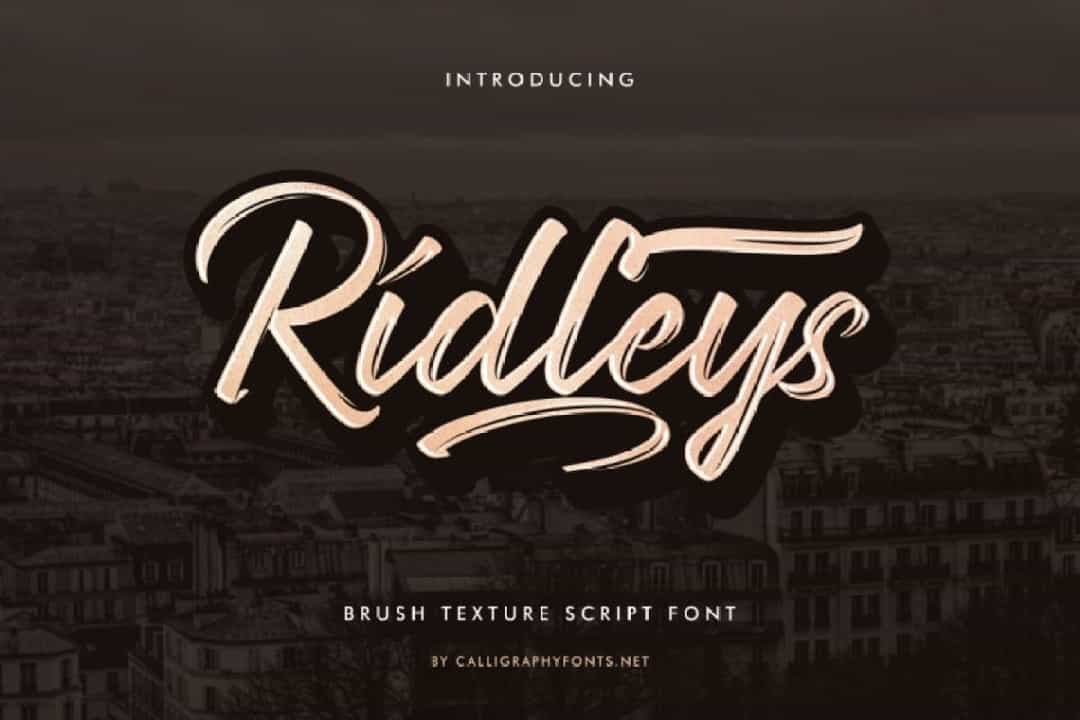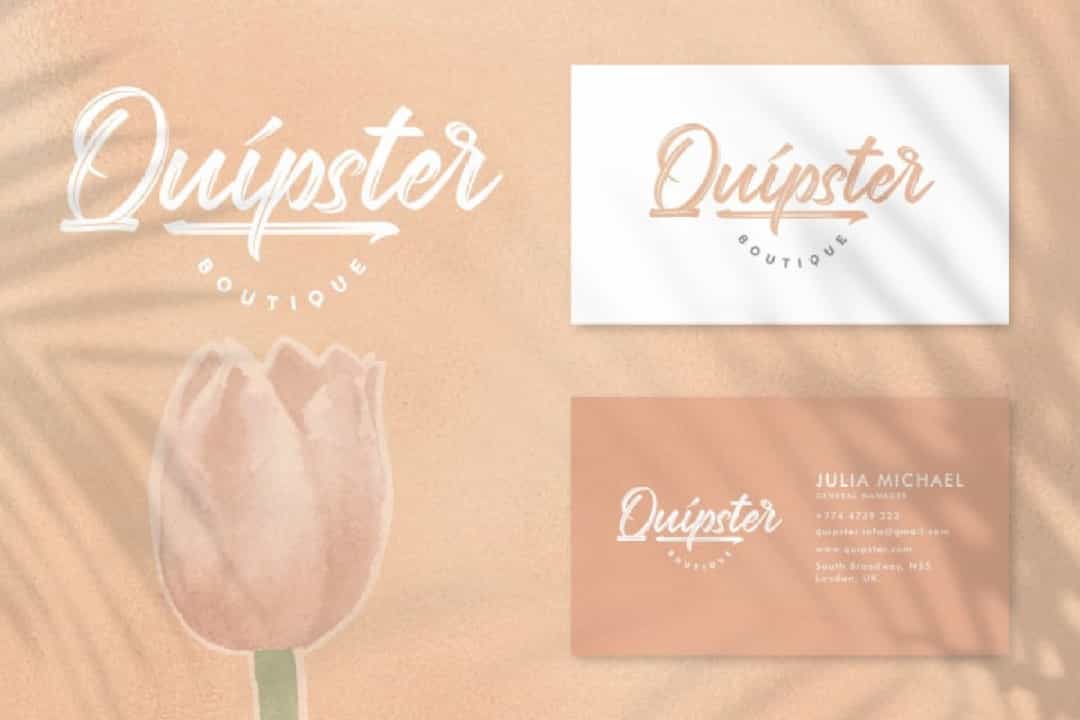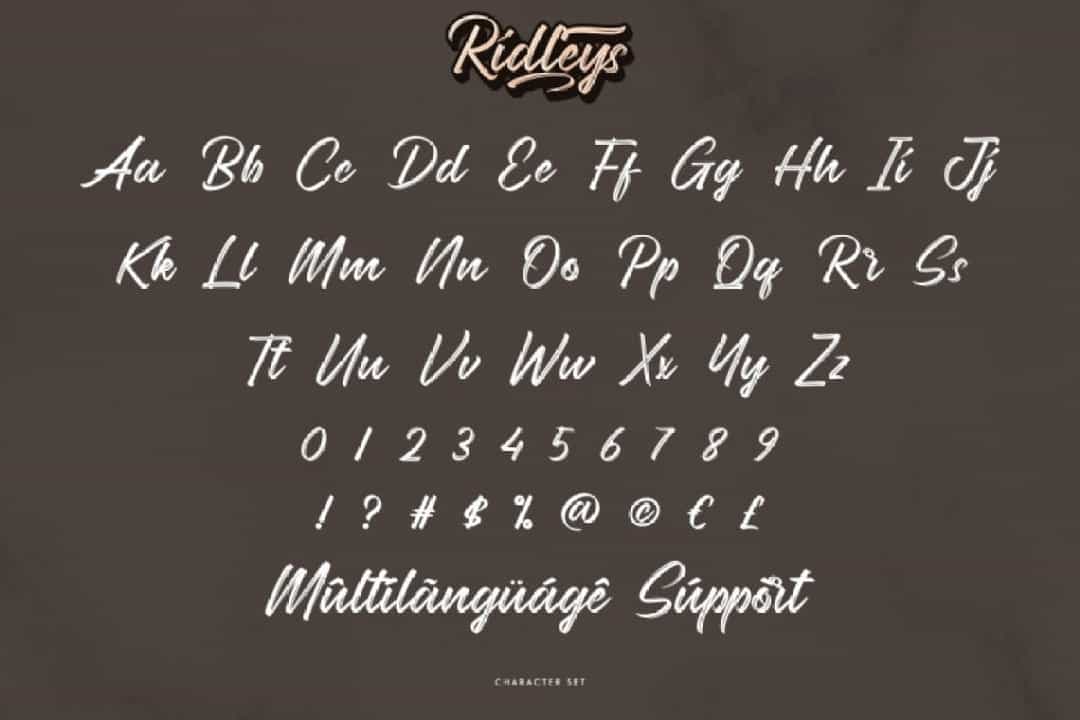
Ridleys is a brush font with a handmade design that contains elegant styling and a classic touch with vintage outlook and strong brush strokes for a more brush font style.